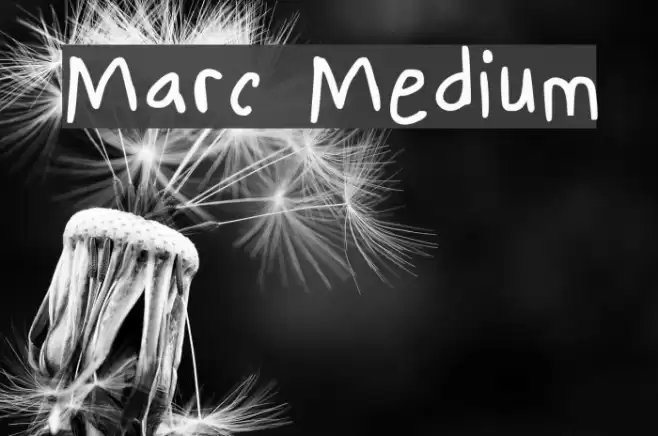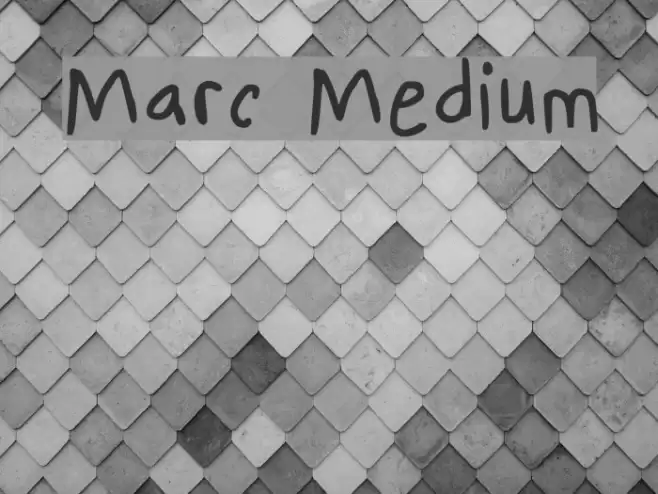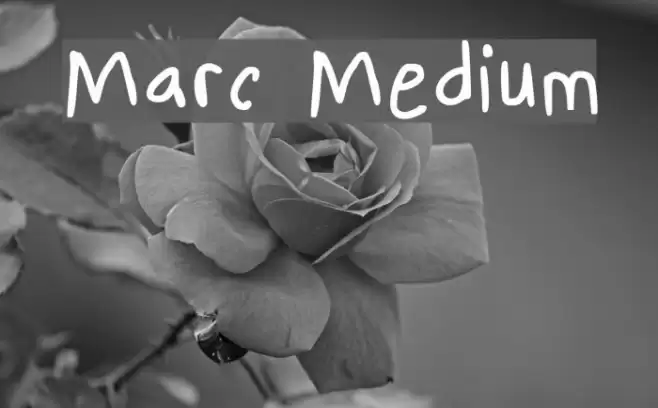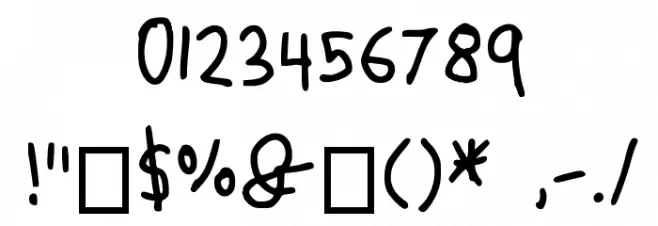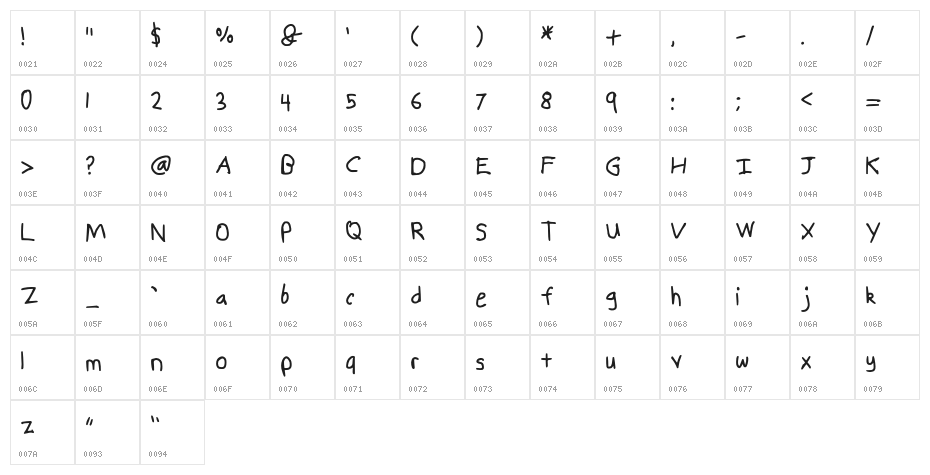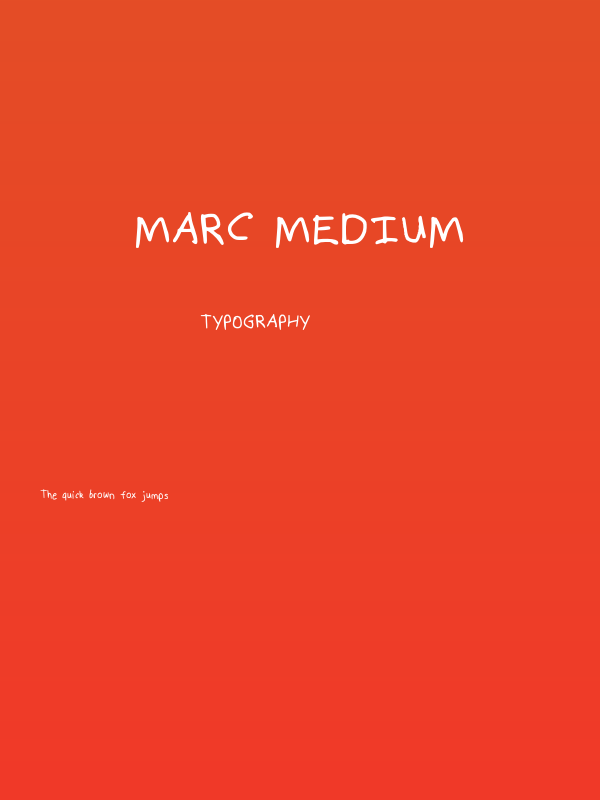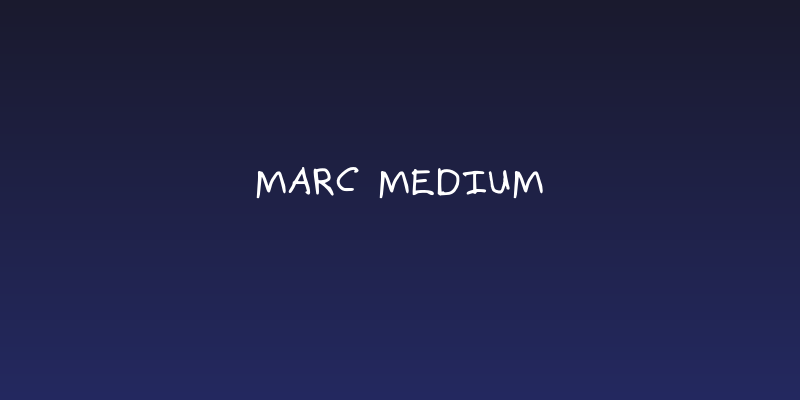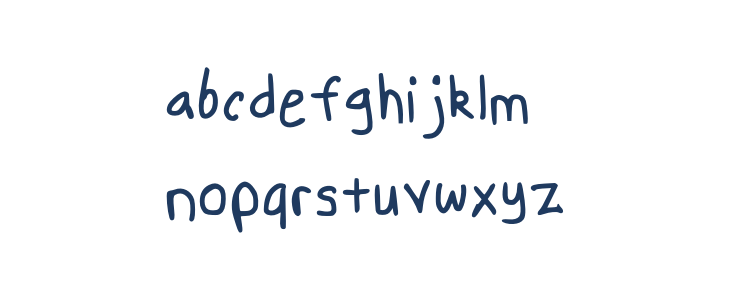
Marc Medium Font
Marc Medium Description
This font features a playful and casual handwritten style, characterized by its irregular and organic letterforms. The strokes are uneven, giving it a natural and informal appearance, reminiscent of a personal note or a doodle. The uppercase and lowercase letters maintain a consistent flow, with rounded edges and varying stroke widths that add to its charm. The numerals and special characters follow the same whimsical style, making it suitable for creative and informal projects. Its unique personality makes it stand out, while still being legible and approachable.
A playful, handwritten font with an informal and organic style from Uncategorized fonts.
- Proposed Projects: Ideal for greeting cards, children's books, casual invitations, and creative branding projects.
- Overall Style: Casual, Playful
- Use Case: Headlines, Informal text, Creative projects